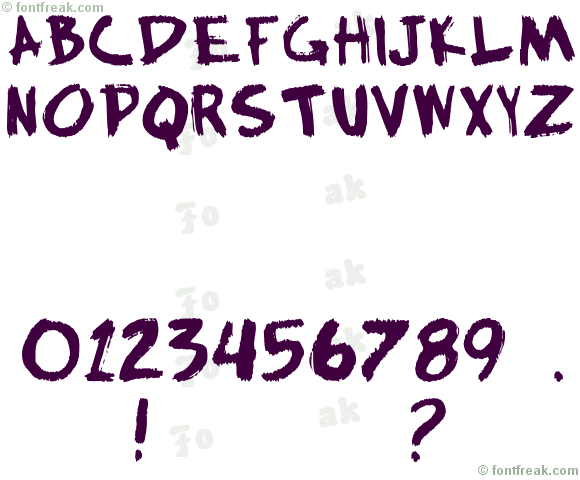
HillWilliam
About HillWilliam
HillWilliam is a unique handwritten font designed by Marty Bee, capturing a playful yet artistic spirit. Classified as a display font, it showcases a distinct style that is perfect for projects requiring a personal touch. The letterforms are characterized by their irregular yet charming strokes, offering a light-hearted appearance that sets it apart from more traditional typefaces. With a medium stroke weight and minimal contrast, HillWilliam maintains excellent readability while exuding warmth and creativity.
The spacing between letters is thoughtfully designed to ensure clarity, making it an ideal choice for various applications. This font is particularly well-suited for wedding invitations, where its whimsical nature can enhance the romantic theme. It also shines on movie posters, giving a unique flair that can draw attention and intrigue. Additionally, HillWilliam is great for restaurant menus, adding a touch of personality that can appeal to a diverse clientele. Content creators and graphic designers will find it useful for social media graphics, allowing them to convey messages in a fun and engaging way.
The target audience for HillWilliam includes graphic designers, small business owners, and content creators who seek to make their projects stand out with a distinctive font. Whether you're crafting a logo or designing promotional materials, this font adds an element of authenticity and charm.
Author Marty Bee